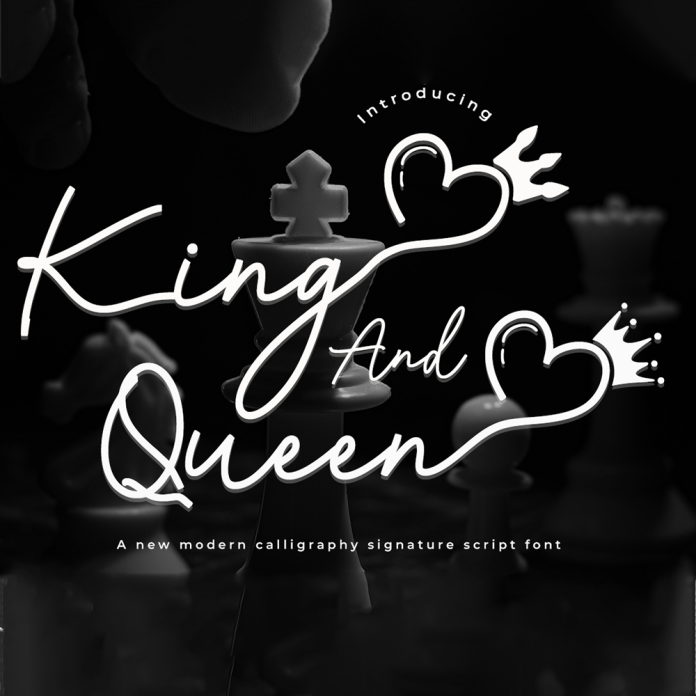
The King and Queen font is an elegant and regal script font that exudes sophistication and luxury. With intricate details and flourishes, this premium font is perfect for adding a touch of class to invitations, branding, and other design projects. Its timeless style makes it ideal for creating a royal and majestic feel.